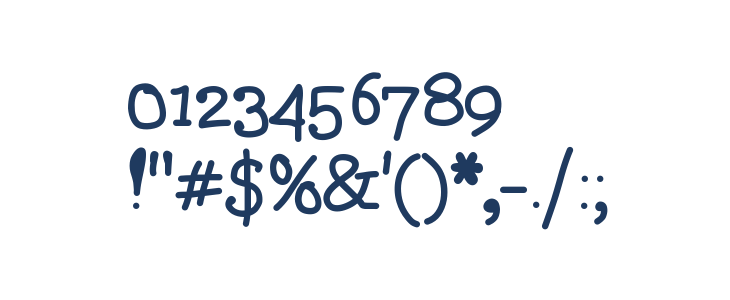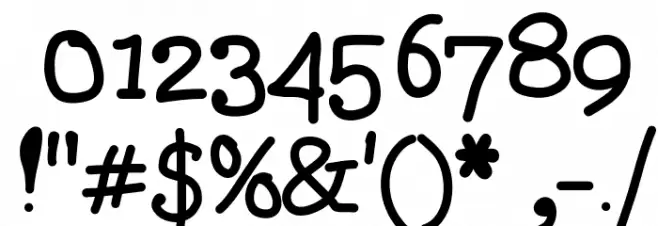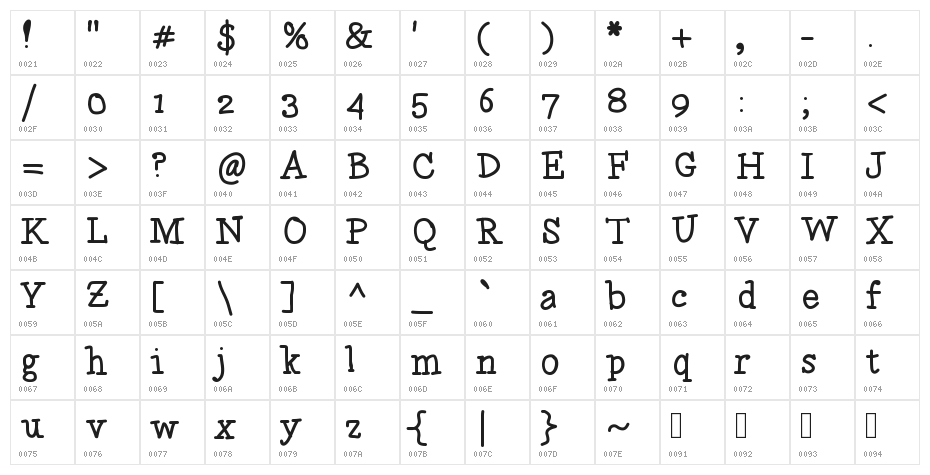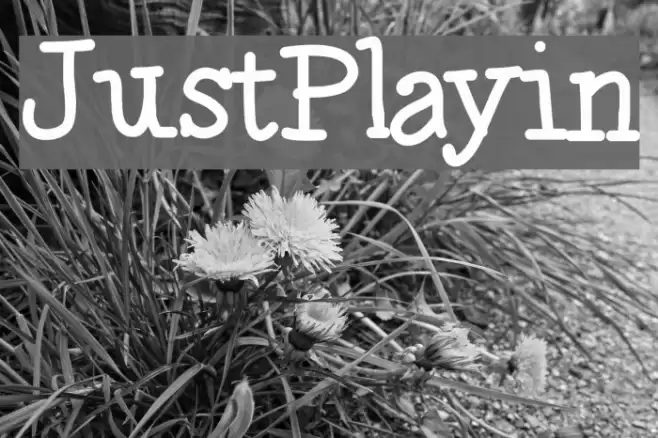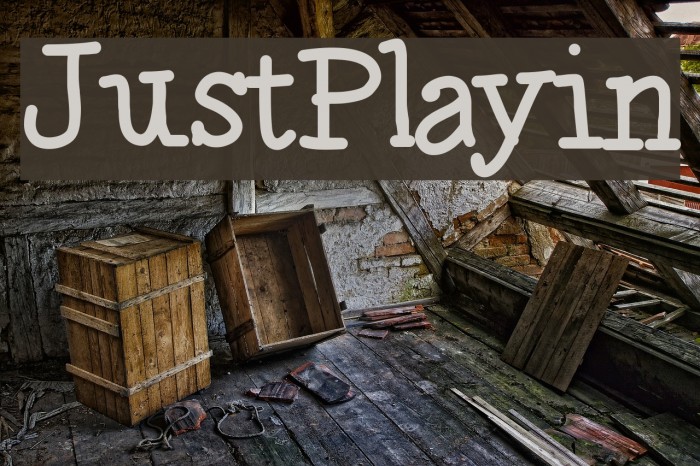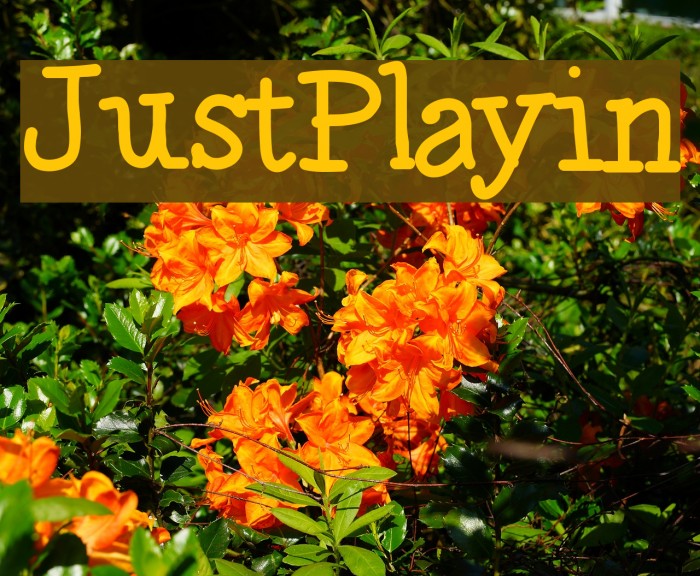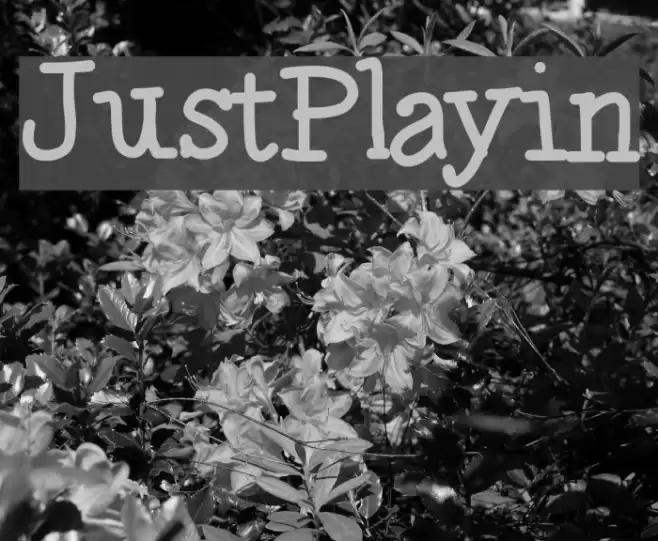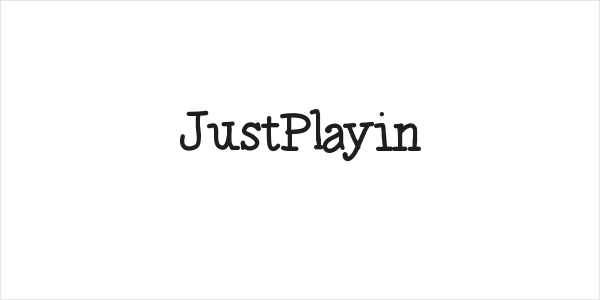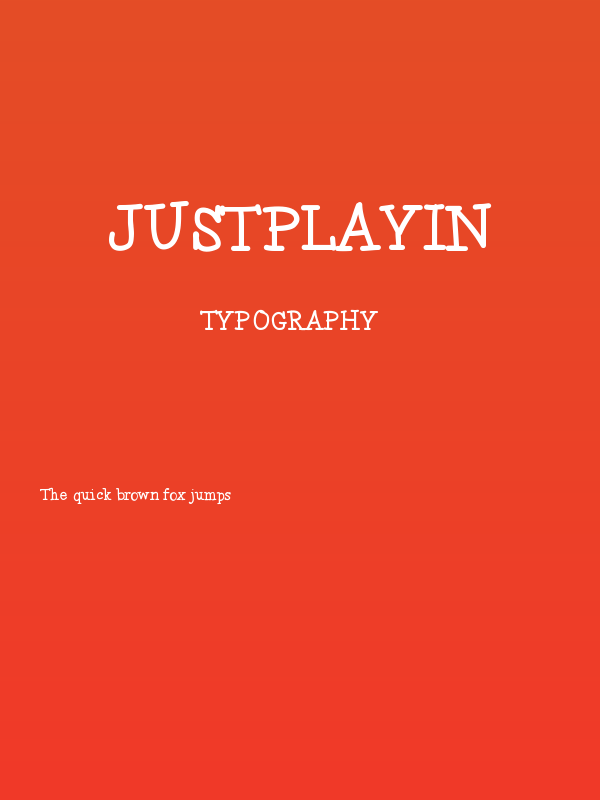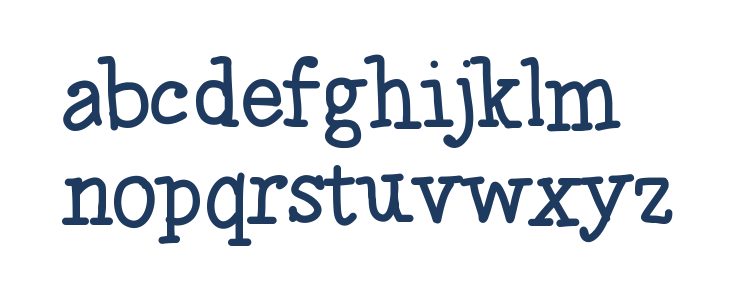
JustPlayin Font
JustPlayin Description
This font features a playful and whimsical design, characterized by its bold, rounded serifs and slightly irregular letterforms. The uppercase letters are robust and stand confidently, while the lowercase letters maintain a consistent flow with a touch of quirkiness. Numbers are bold and easily legible, making them suitable for various applications. The special characters retain the same playful essence, ensuring a cohesive look across all text elements. The overall style is reminiscent of hand-drawn or comic book fonts, adding a sense of fun and creativity to any project.
| Proposed Projects | Ideal for children's books, comic strips, playful branding, and creative posters. |